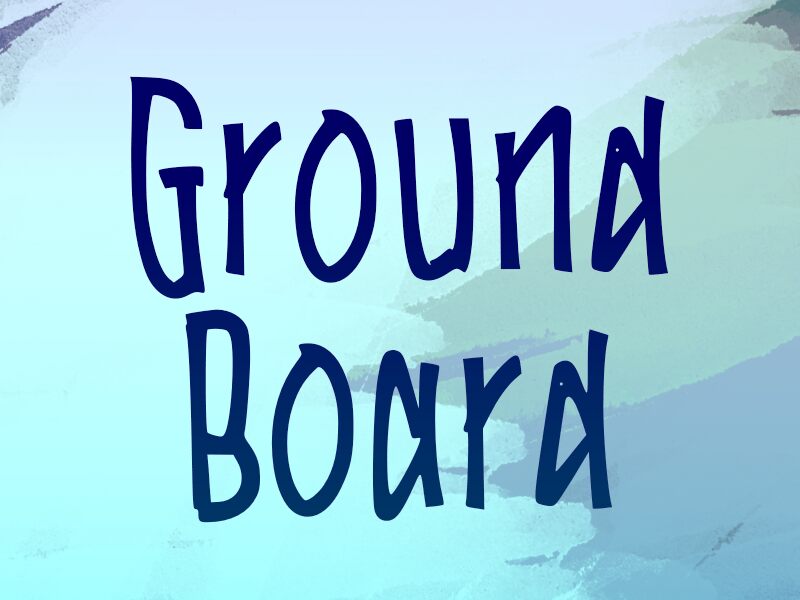
Ground Board
Ground Board, a captivating handwritten font crafted by designer wep, exudes a raw, organic charm that captivates the senses. This condensed typeface boasts a dynamic, expressive brushstroke aesthetic, effortlessly blending the allure of the handmade with a refined, elegant execution. The font's irregular, yet deliberate strokes convey a sense of authenticity, inviting the viewer to experience the warmth and personality of the written word.
The Ground Board font's versatility shines across a diverse range of applications, from rustic branding and packaging designs to editorial layouts and environmental signage. Its bold, condensed form lends itself well to attention-grabbing headlines, while the organic flow of the letterforms adds a touch of artistry to any project. Whether crafting a cozy, handcrafted aesthetic or seeking to infuse a design with a hint of artisanal charm, Ground Board by wep is a captivating choice that is sure to elevate any creative endeavor.